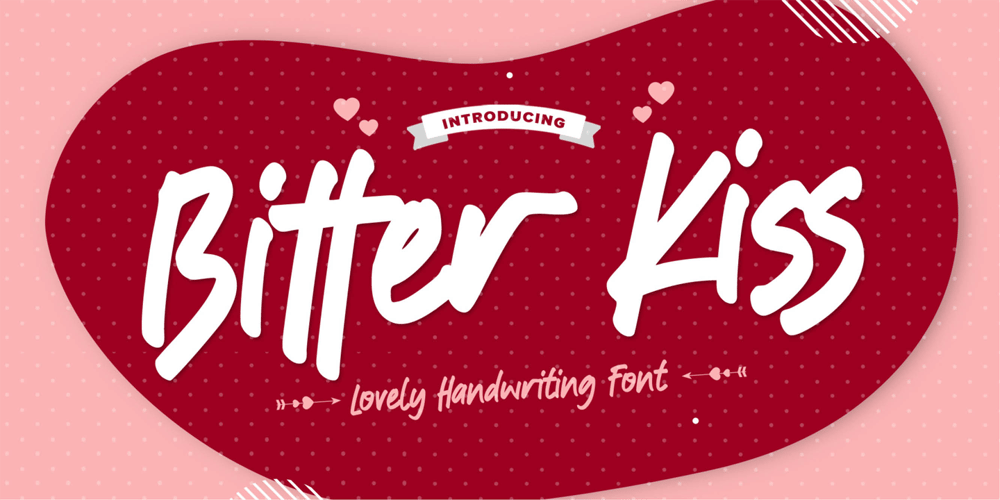
Bitter Kiss
Bitter Kiss font
Bitter Kiss Font Family was designed by Abdul Malik Wisnu, Anang Fibriyanto and published by Gassstype. Bitter Kiss contains 1 styles and family package options. Here comes a New font,Introducing Bitter Kiss – Lovely Handwritten Font with a natural style and dramatic movement. Crafted manually with love and passion, This font is great for your next creative project such as logos, printed quotes, invitations, cards, product packaging, headers, Logotype, Letterhead, Poster, Label, and etc.Bitter Kiss a natural Hand Drawn feel. This handmade font will make your design has a beautiful natural touch for each details. It is perfect for any design project as Invitation,logo, book cover, craft or any design purposes,photos, photography overlays, signs, window art, scrapbooking, tags and so much more!